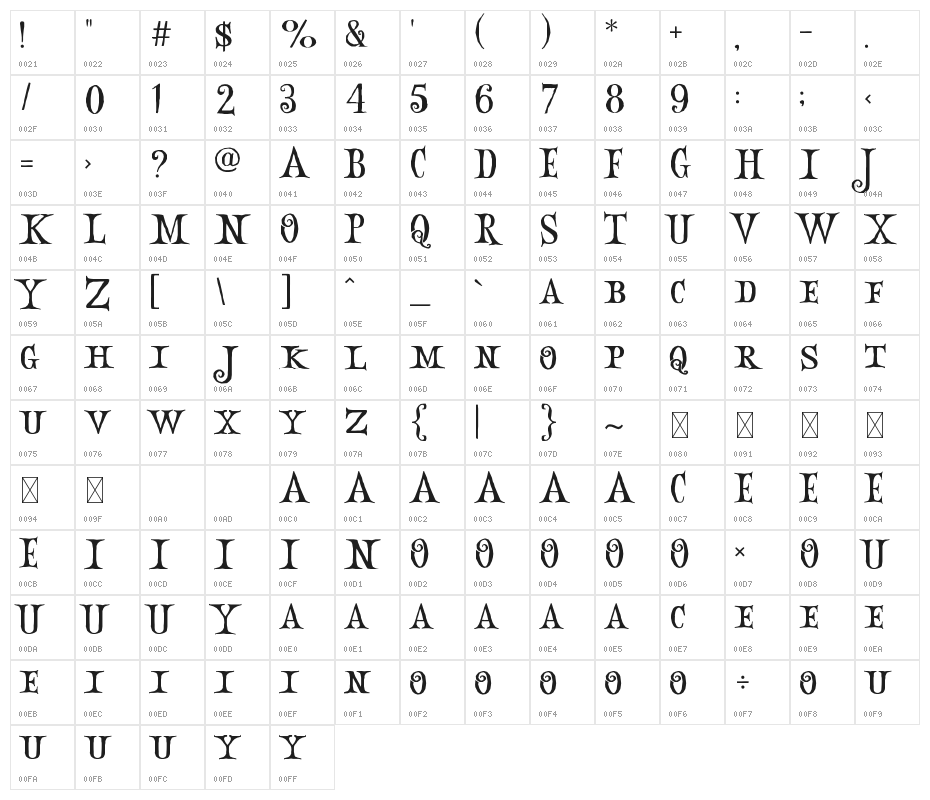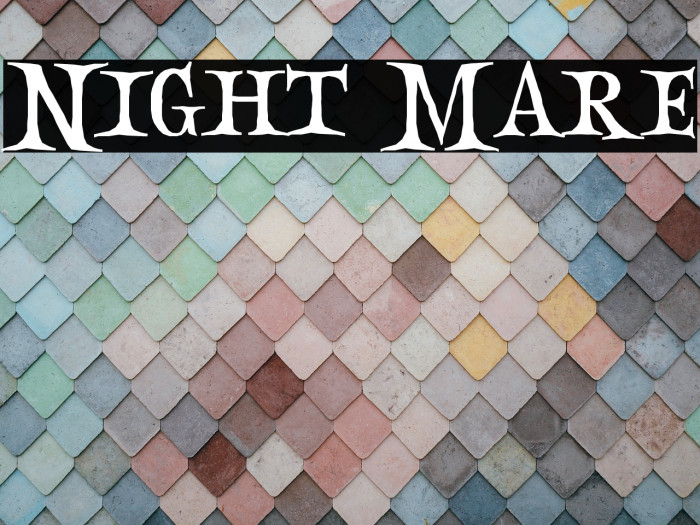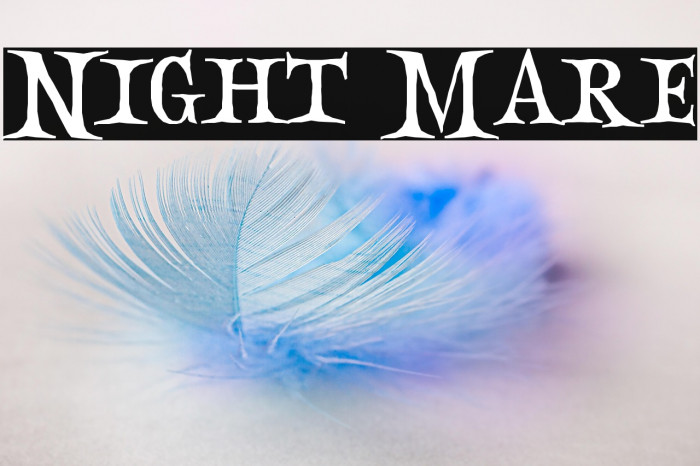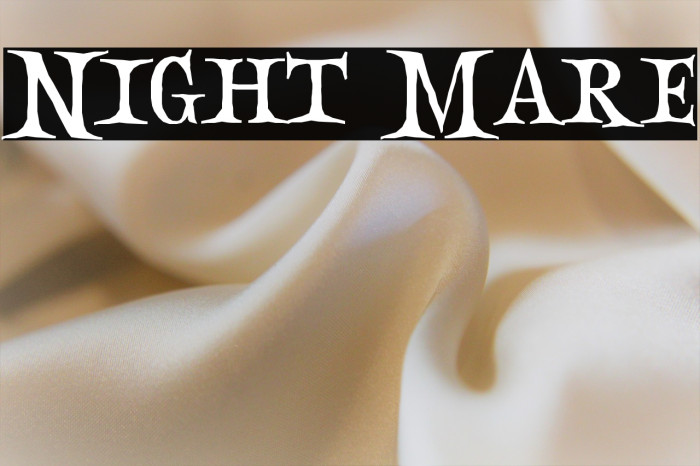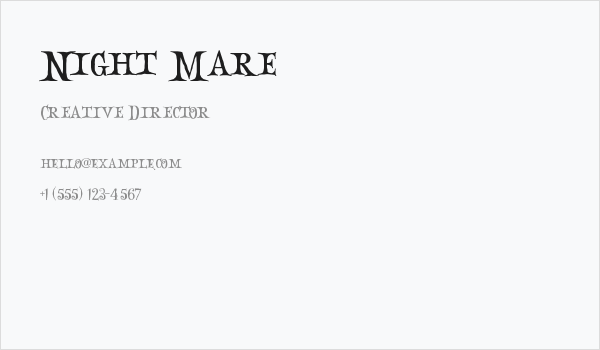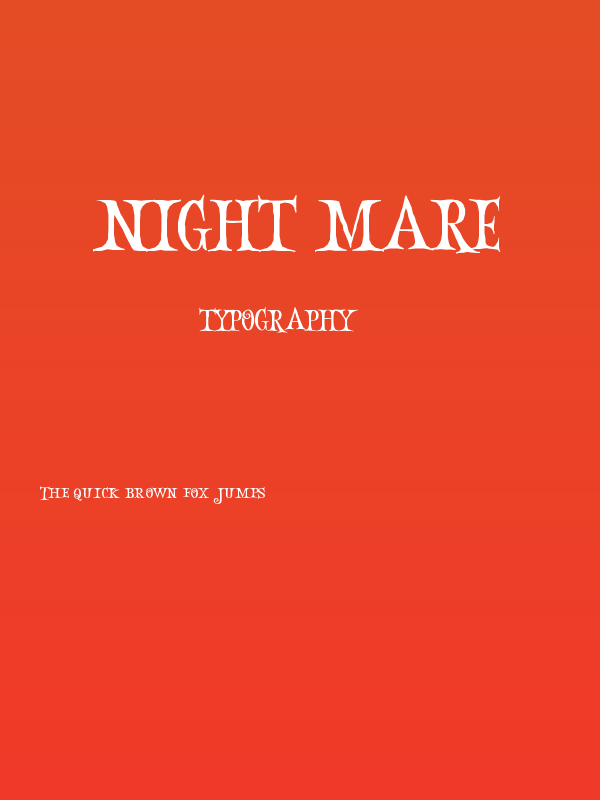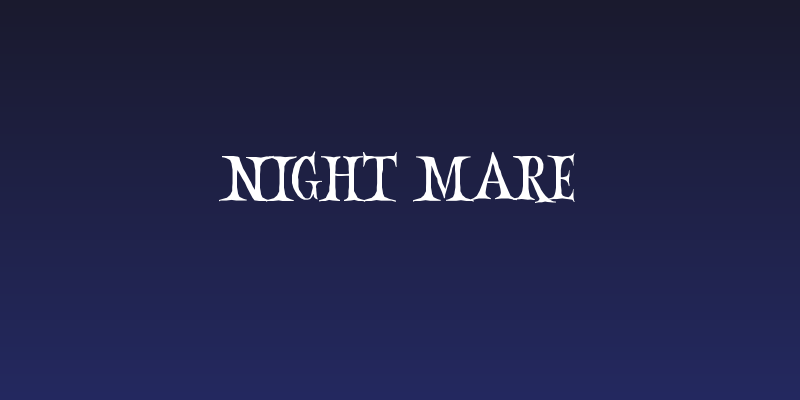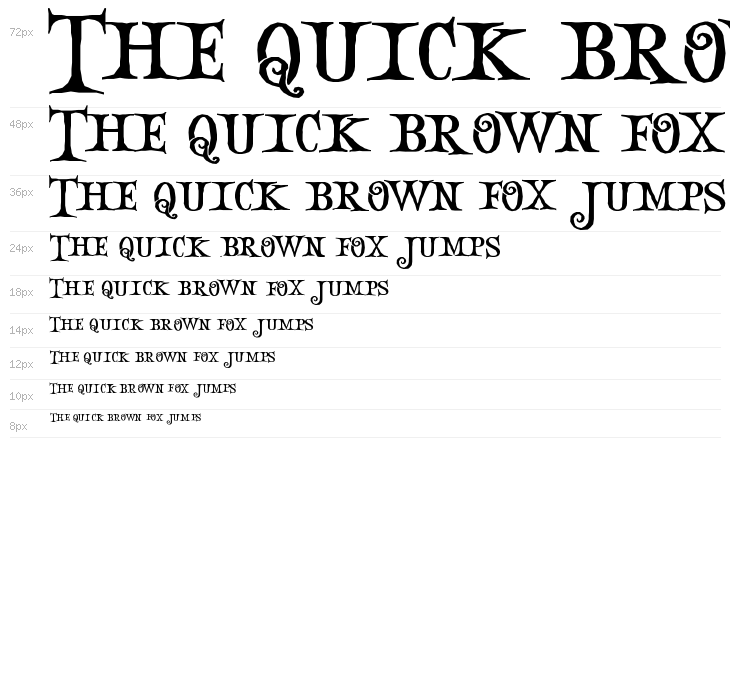
Night Mare Font
Night Mare Description
This font exudes a gothic and eerie aesthetic, characterized by its sharp, pointed serifs and dramatic flourishes. The uppercase letters are bold and commanding, with unique embellishments that give each character a distinct personality. The lowercase letters maintain the same stylistic elements, ensuring consistency throughout. Numbers and special characters are equally ornate, with swirling details that enhance the font's mysterious and haunting vibe. The overall design is reminiscent of classic horror themes, making it ideal for projects that require a touch of the macabre.
| Overall Style | Gothic, Decorative |
| Proposed Projects | Ideal for Halloween-themed designs, horror movie posters, spooky invitations, and gothic-style branding. |